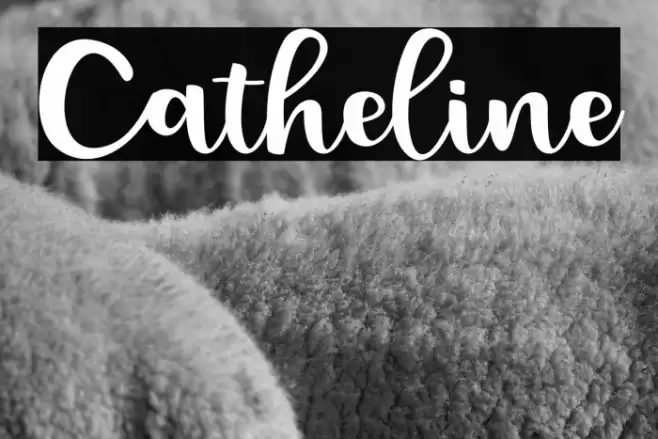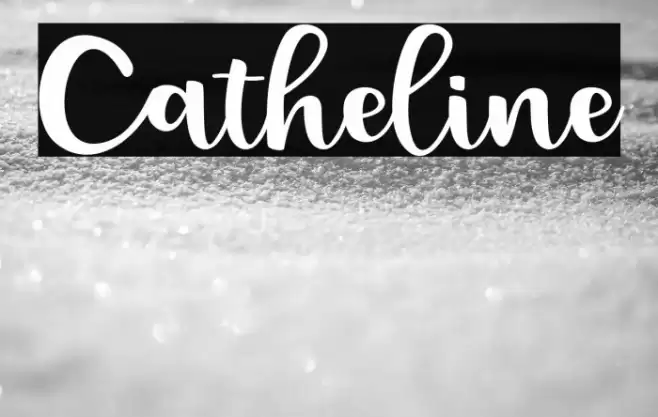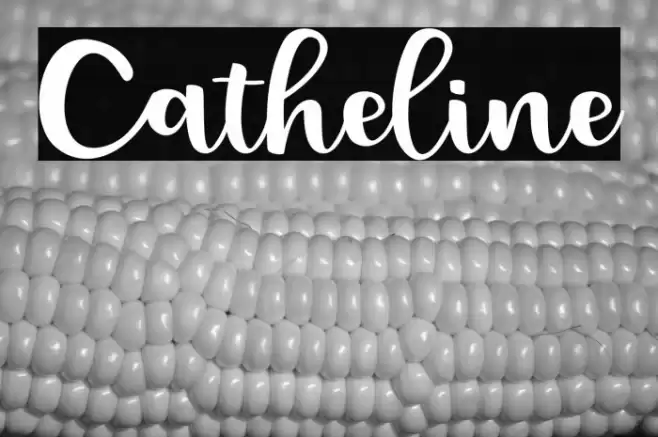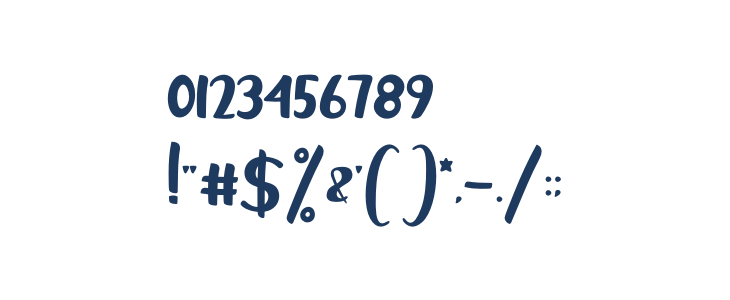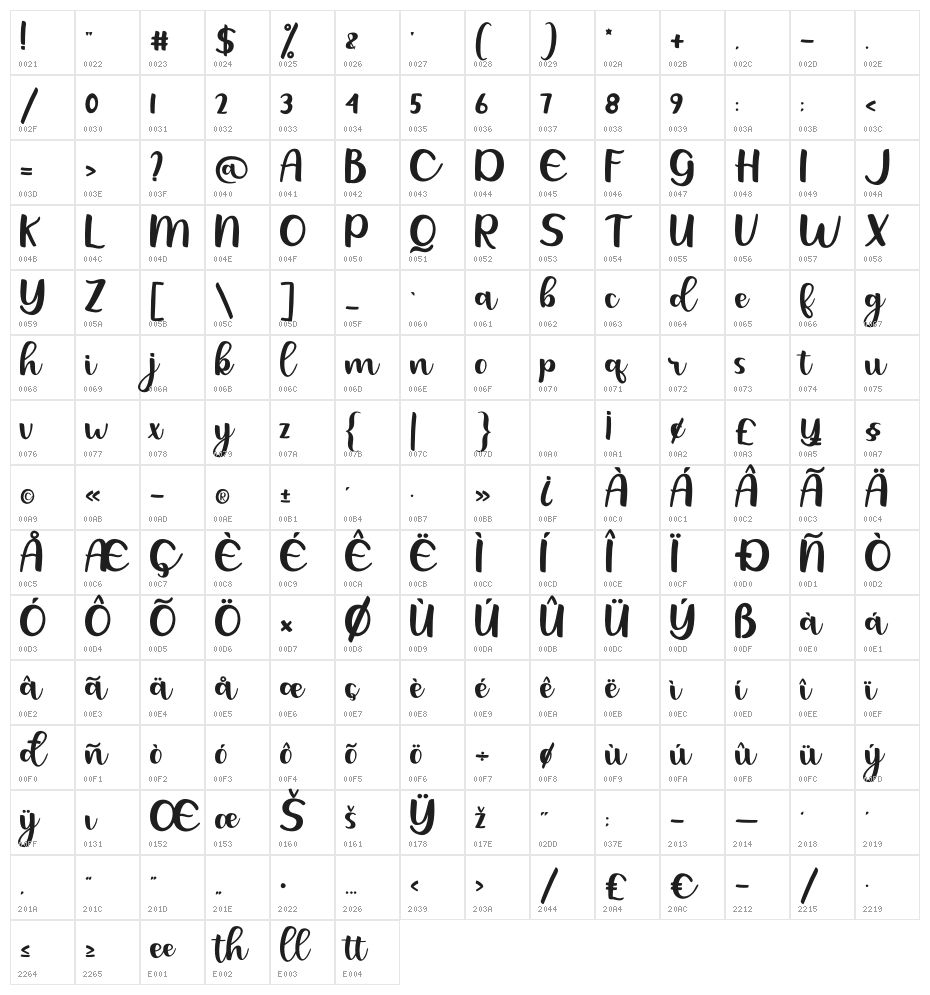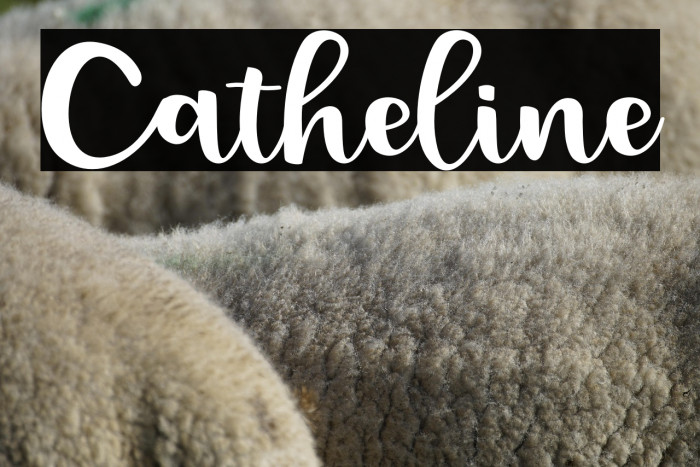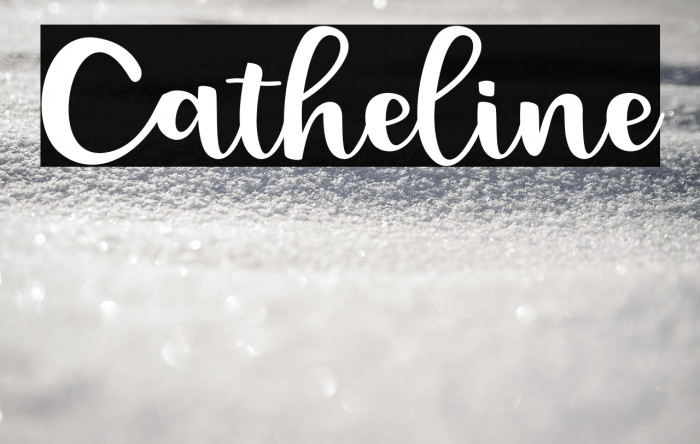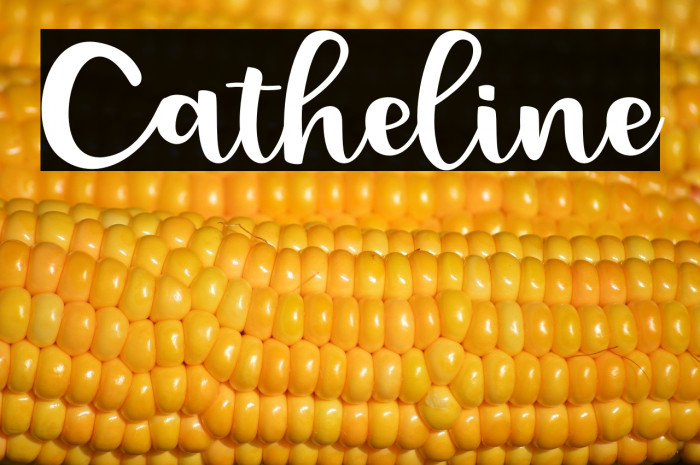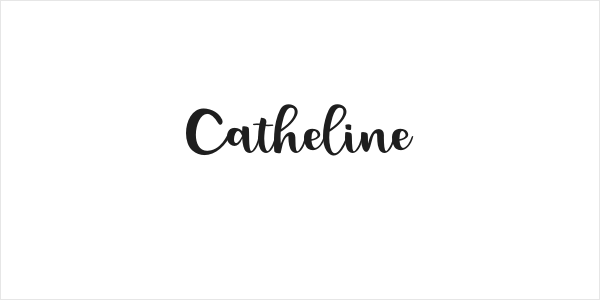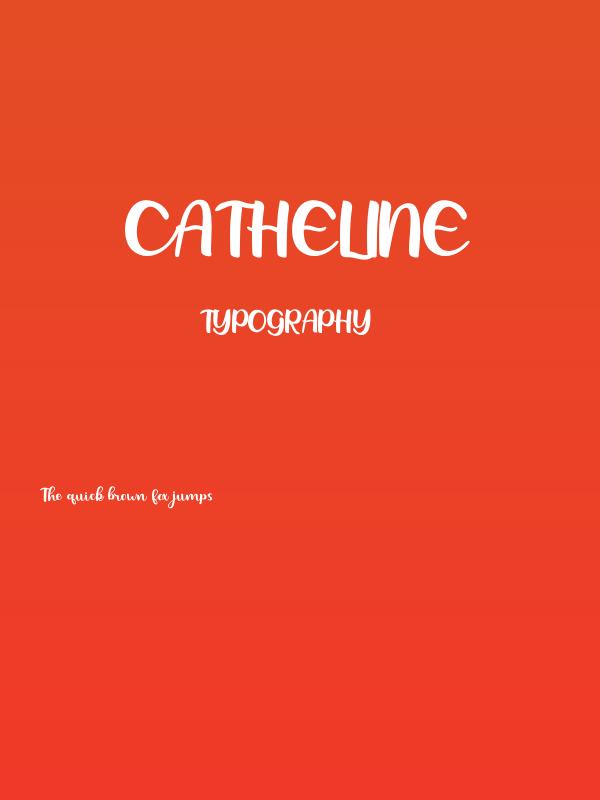
Catheline Font
Catheline Description
This font features a bold and expressive script style, characterized by its flowing, cursive letterforms. The uppercase letters are slightly more structured, while the lowercase letters exhibit a more fluid and connected appearance. The numbers and special characters maintain the same boldness and style, ensuring consistency across all glyphs. The font's strokes are thick, providing a strong visual impact, and the overall design is playful yet elegant, making it suitable for a variety of creative applications.
A bold, expressive script font with flowing cursive letterforms from Uncategorized fonts.